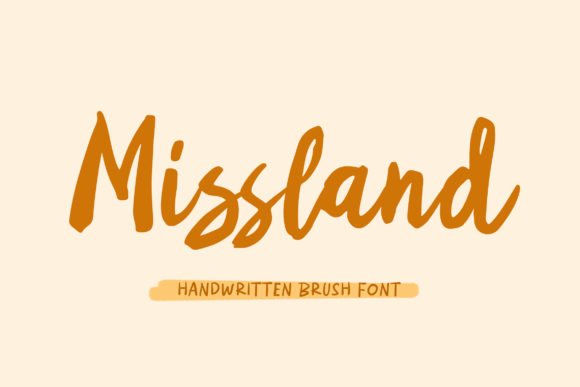
Introducing Missland Font - The Ultimate Handwritten Font for Your Creative Endeavors!
Unleash the power of Missland Font, a breathtaking script font that will ignite your imagination and transform your creative visions into reality. Crafted with meticulous attention to detail by the renowned Weape Design, Missland Font stands as a testament to elegance and versatility.
Step into a world where your words dance with grace and charm, leaving an indelible mark on every project you undertake. Missland Font is the perfect choice for creating wedding invitations that exude timeless romance, stationary art that captivates the senses, and social media posts that demand attention.
With Missland Font, every letter becomes a work of art, flowing effortlessly from your fingertips to create designs that resonate with beauty and sophistication. Its intricate flourishes and delicate curves will add a touch of magic to your creations, making them truly unforgettable.
Dive into a sea of creative possibilities with Missland Font. Its versatile nature makes it suitable for a wide range of projects, from eye-catching logos and branding materials to captivating posters and flyers. Let your imagination soar as you explore new design horizons, knowing that Missland Font will always be there to elevate your work to new heights.
Don't settle for ordinary fonts that blend into the background. Choose Missland Font and watch as your designs come alive with personality and charm. It's the perfect font for those who dare to be different, who seek to leave a lasting impression with every project they undertake.
Embark on a creative journey like never before with Missland Font. Let your imagination run wild as you create masterpieces that captivate and inspire. The possibilities are endless, and the results will be nothing short of extraordinary.